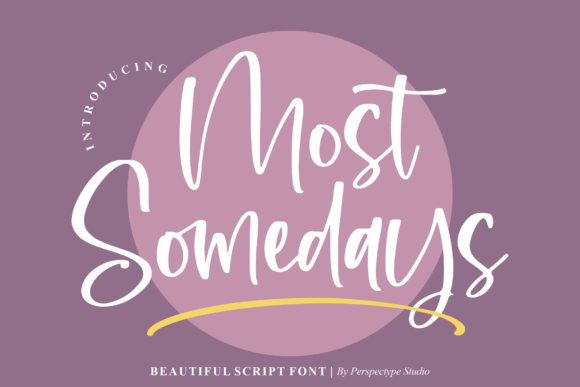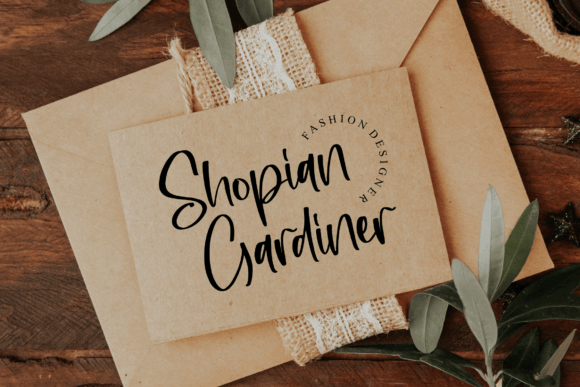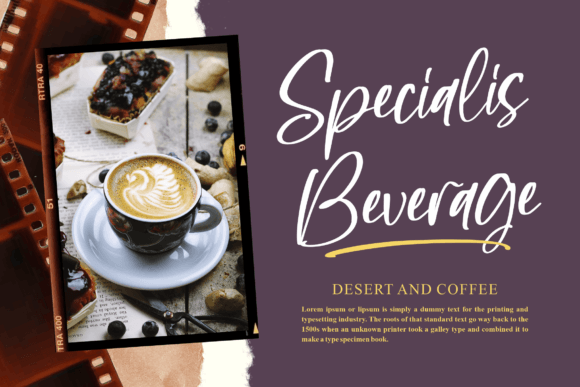
Most Somedays Font: A Joyful Handwritten Script for Wedding & Logo Design
About the Most Somedays Font
From logos to headlines, the Most Somedays Font is the perfect choice for making a lasting impression. Most Somedays is a sweet and cursive handwritten signature script font. This gentle font will look gorgeous on a variety of design ideas. It will add a joyful and romantic touch to each of your projects!  Perfectly fit for branding, logo, wedding things, greeting cards, fashion, lookbook, marketing promotion, anytime you want to look fancy elegant but still casual.
Most Somedays excels in applications requiring a touch of romantic elegance, such as wedding invitations, greeting cards, and branding for businesses emphasizing handcrafted quality or feminine aesthetics. Its delicate nature makes it ideal for short headlines, logos, and short-form text on packaging. However, its cursive style and limited x-height make it unsuitable for body text or UI elements where readability is paramount.
Pairing Most Somedays effectively requires considering its script nature. A clean sans-serif like Lato or Open Sans provides a strong contrast, enhancing readability when used for supporting text. For a more luxurious feel, a classic serif such as Garamond or Playfair Display creates a harmonious pairing, amplifying the font’s inherent sophistication. Avoid pairing with other script fonts to prevent visual clutter.
The overall personality of Most Somedays is undeniably romantic and feminine, conveying a sense of gentle charm and delicate artistry. Its whimsical quality is best suited for projects that aim for a soft, approachable, and subtly luxurious feel.
Most Somedays Font Usage Examples
Most Somedays Font Example